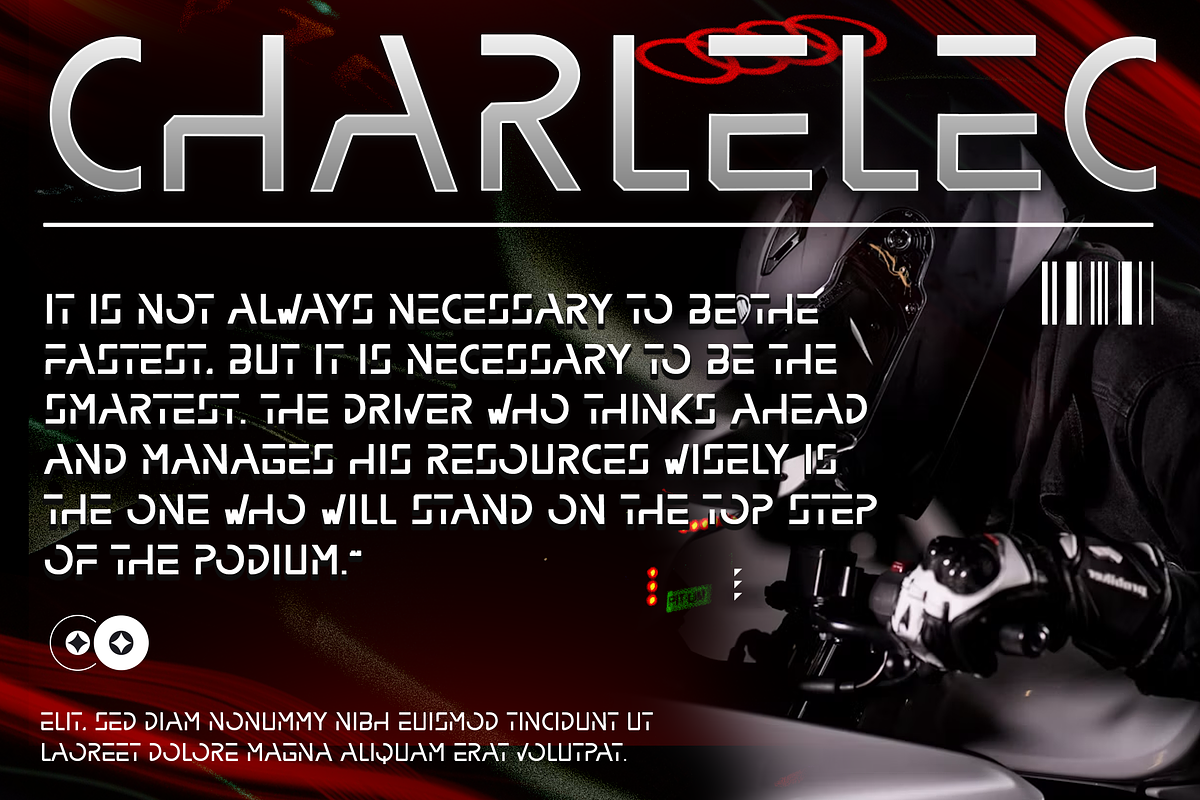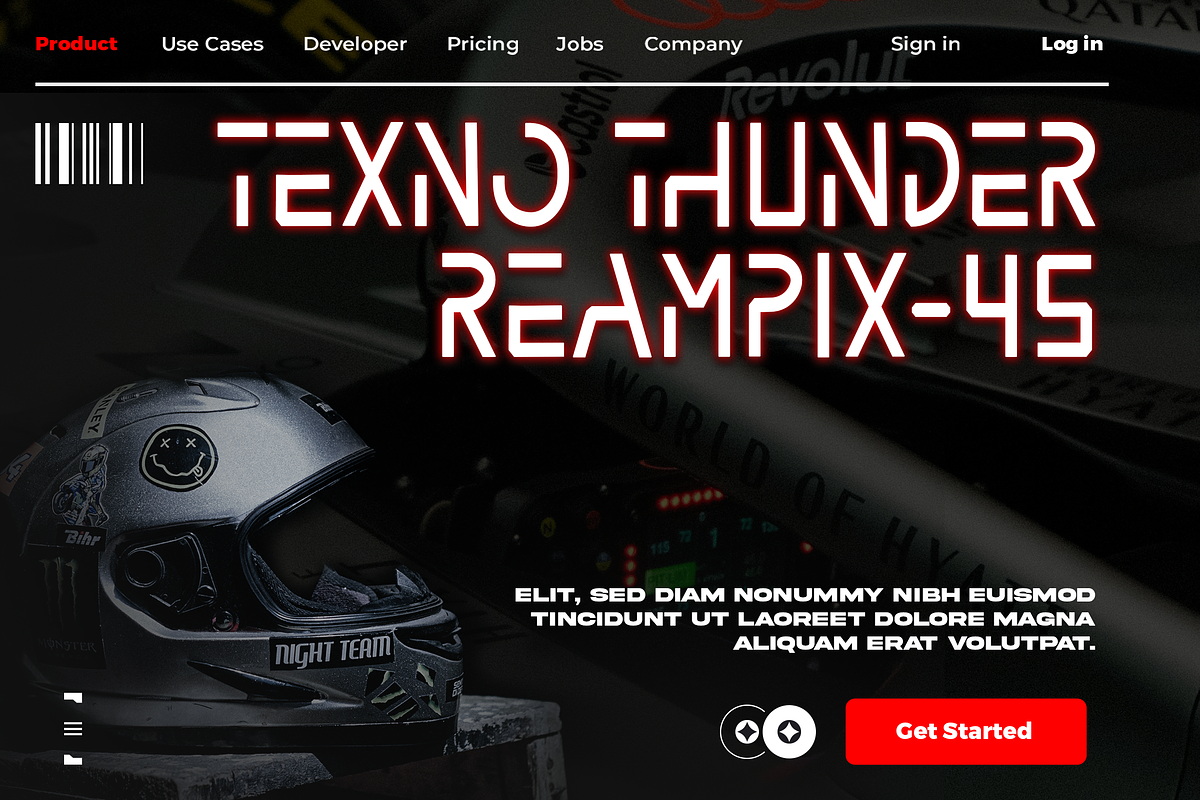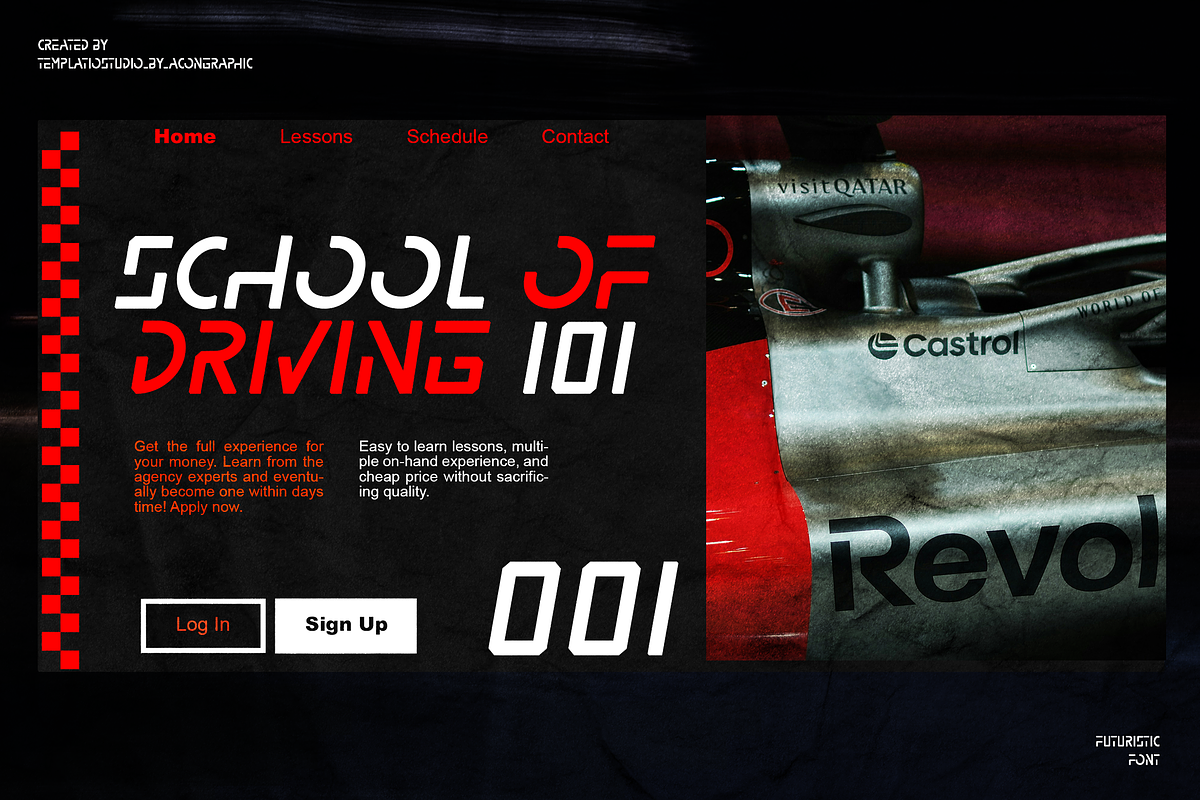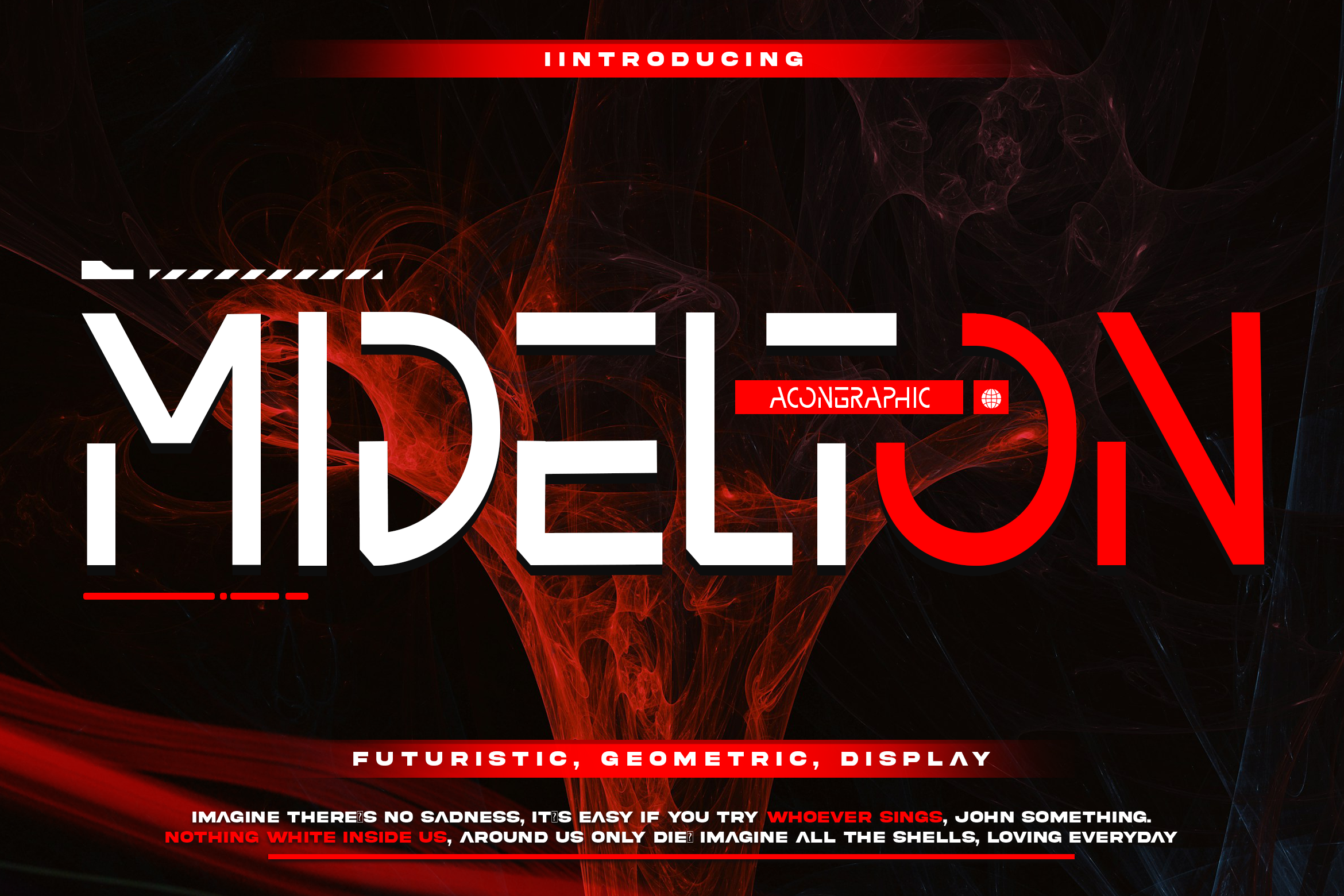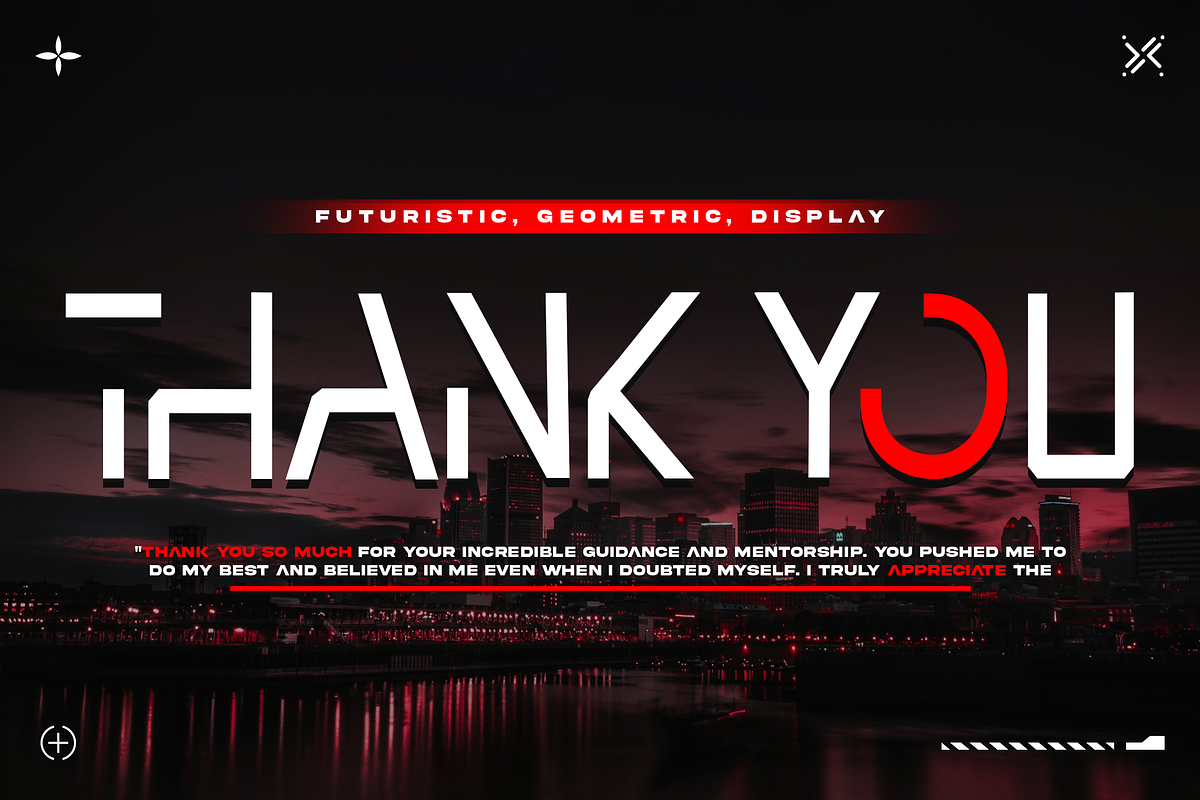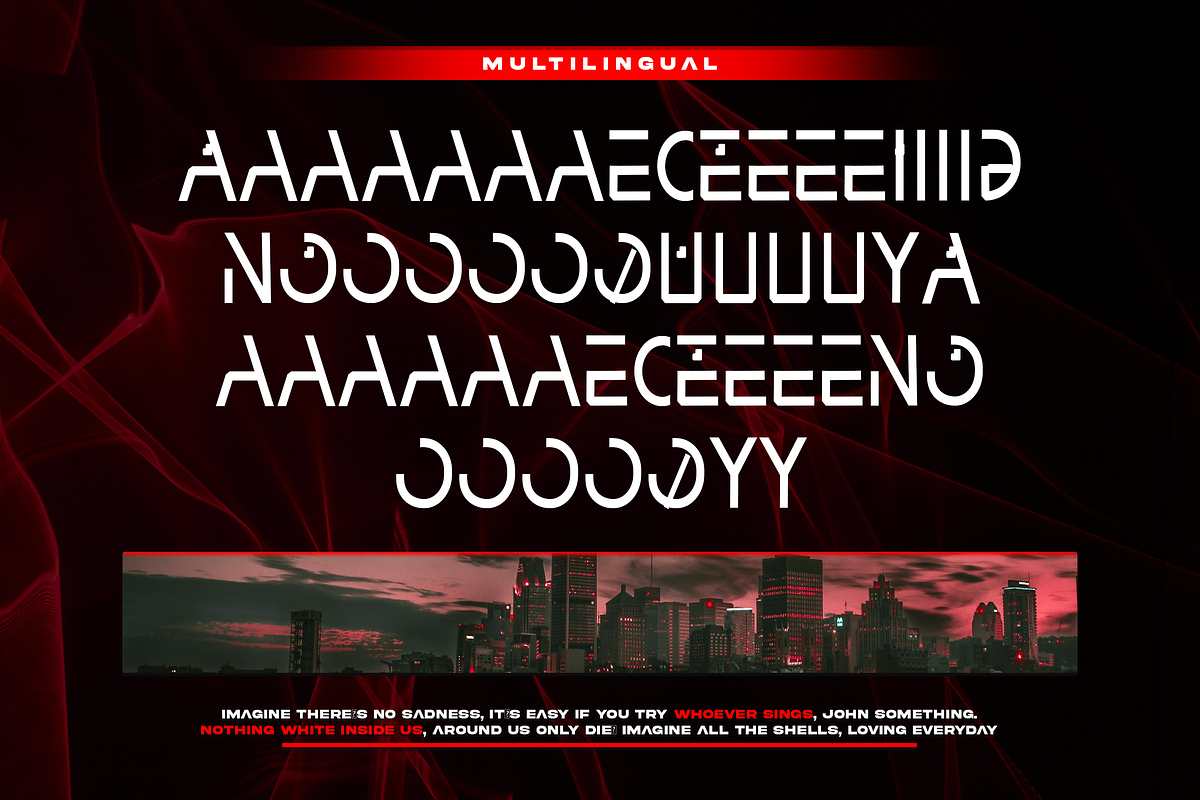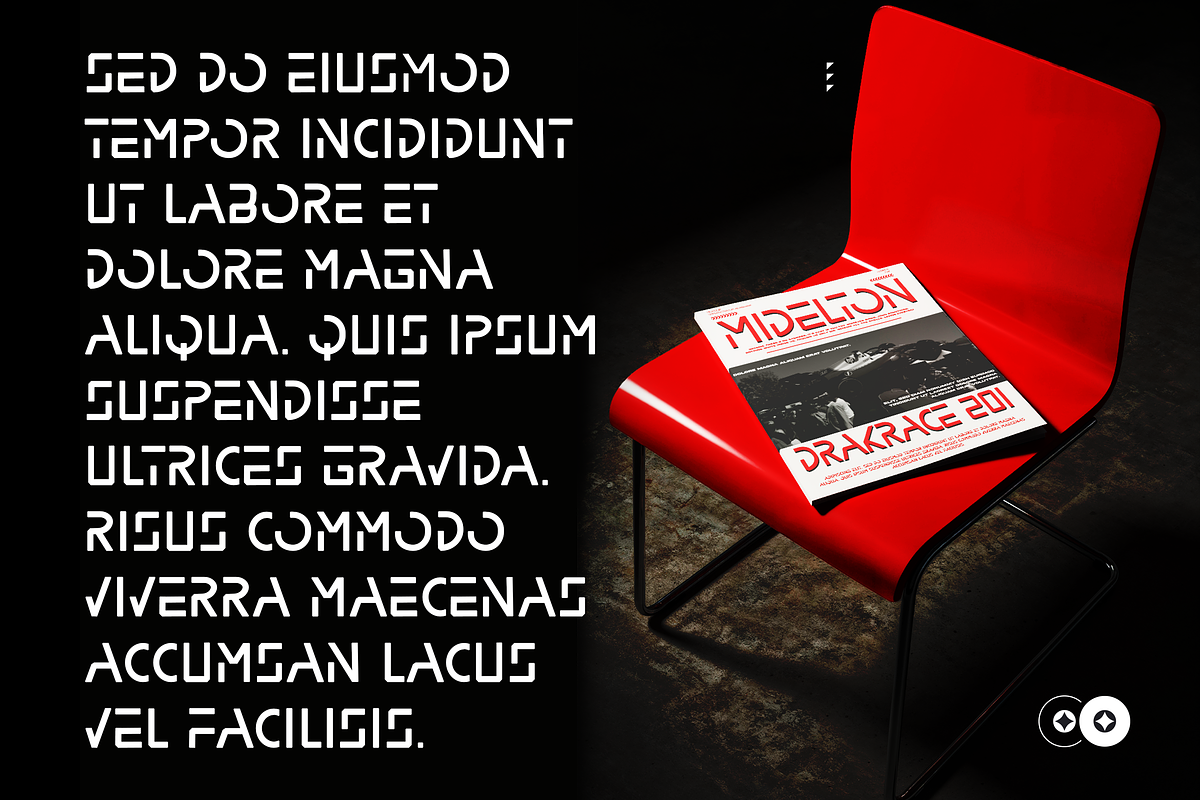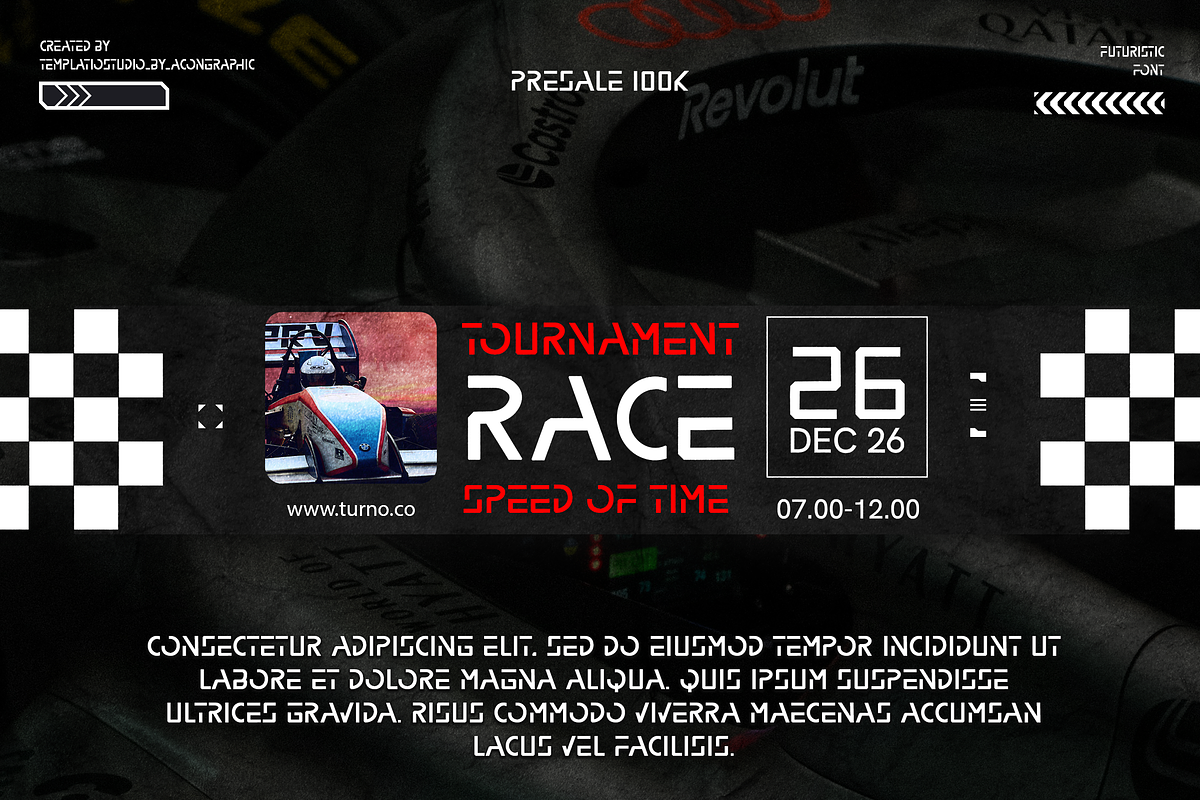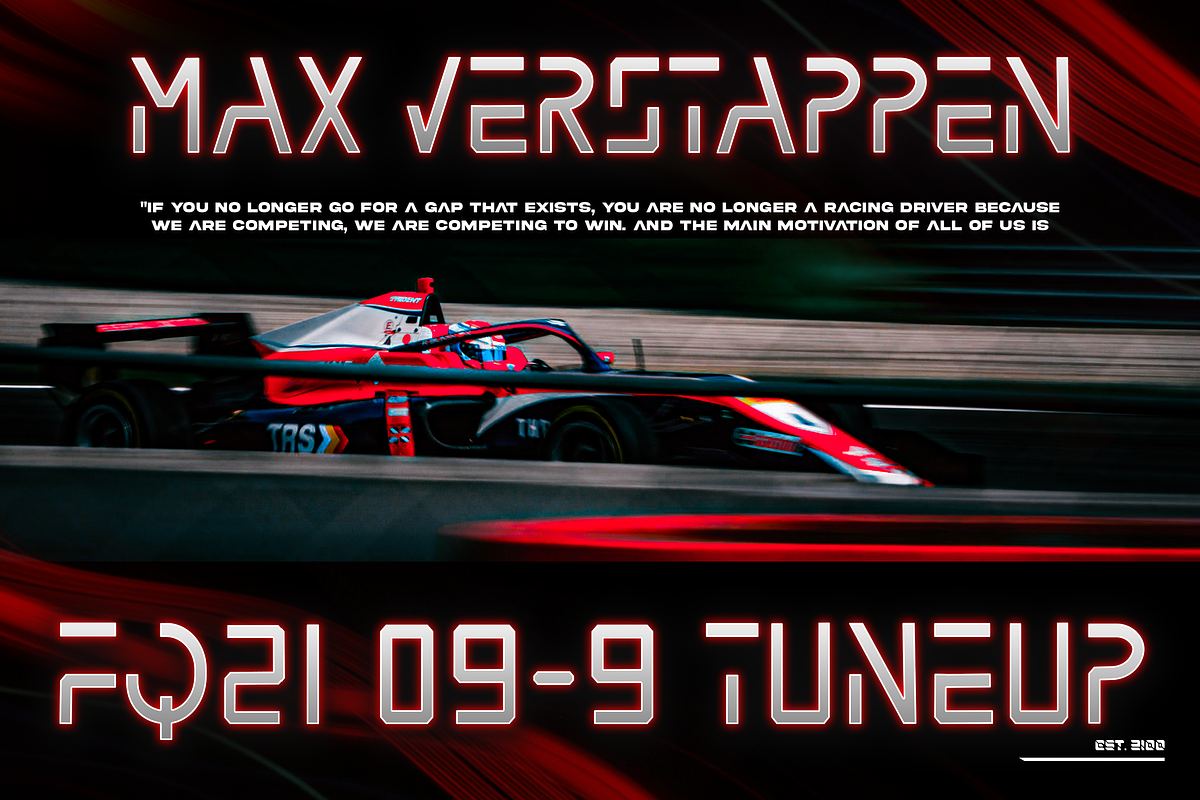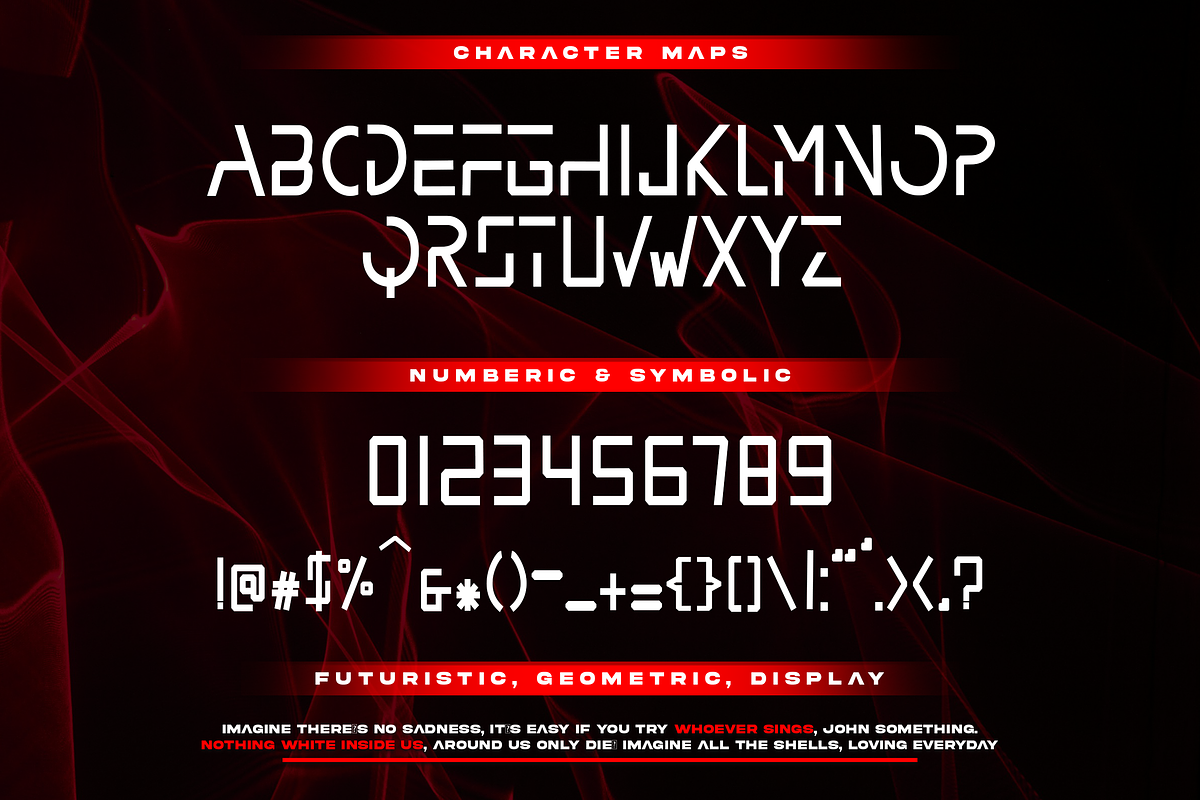
Midelton Futuristic Display Typeface
Midelton is a futuristic geometric display typeface designed with distinctive angular letterforms, experimental construction, and a clean technological aesthetic.
Built for high-impact typography, Midelton combines geometric shapes with unusual cuts and futuristic details, making it ideal for futuristic branding, technology projects, sci-fi artwork, gaming visuals, esports graphics, posters, headlines, titles, logos, packaging, apparel, and digital design.
The distinctive construction of Midelton is especially effective at large display sizes, where its unique shapes, angular details, and experimental character can be clearly appreciated.
• Futuristic geometric display style
• Geometric and experimental letterforms
• Distinctive angular character design
• Clean and modern technological aesthetic
• Uppercase and lowercase characters
• Numbers and punctuation
• Currency and additional typographic symbols
• Latin-based extended character support
• Professional spacing and kerning
• Designed for large display applications
• Suitable for headlines, titles, logos, and branding
PERFECT FOR
• Futuristic Branding
• Technology Projects
• Sci-Fi Designs
• Gaming Projects
• Esports Graphics
• Cyberpunk Designs
• Logo Design
• Posters
• Headlines
• Movie Titles
• Album Covers
• Editorial Design
• Advertising
• Packaging
• Apparel
• Social Media Graphics
• Digital Design
• UI and Interface Concepts
• Creative Campaigns
• Experimental Typography
CHARACTER SUPPORT
Midelton includes Basic Latin, Latin-1 Supplement, and selected Latin Extended-A characters, together with additional punctuation, currency, and typographic symbols.